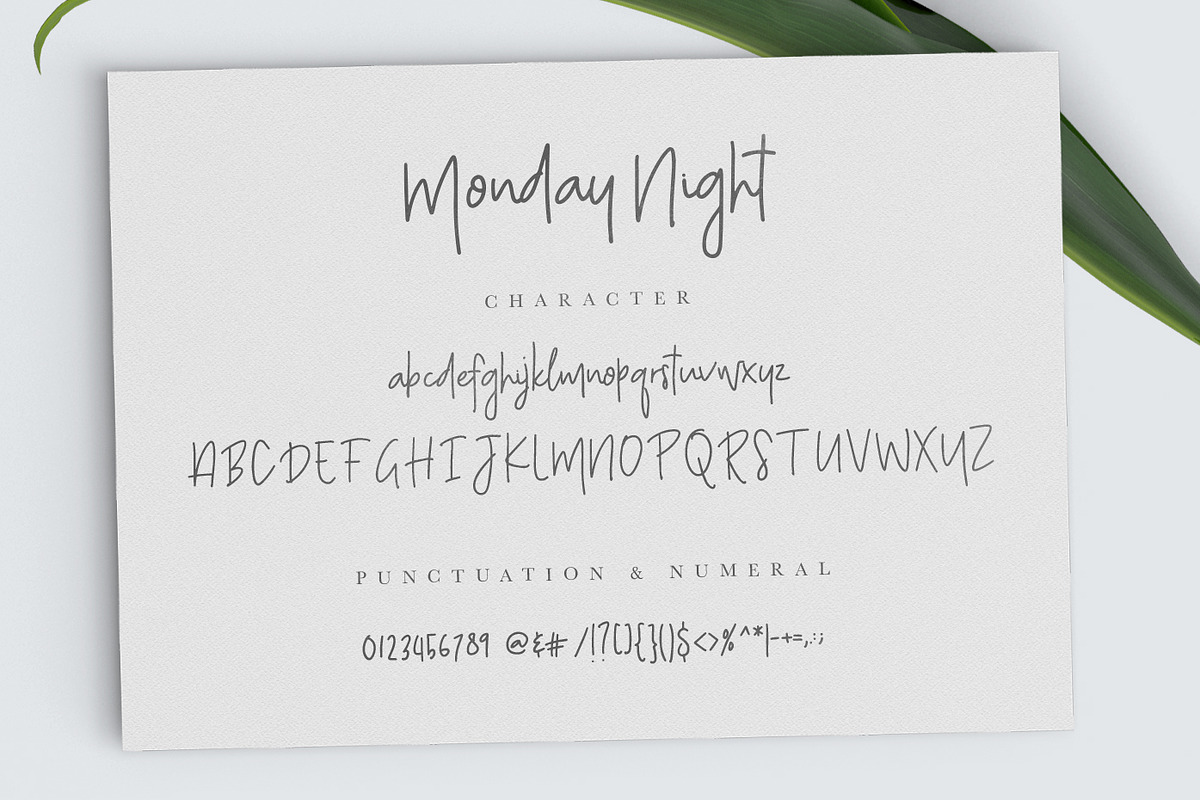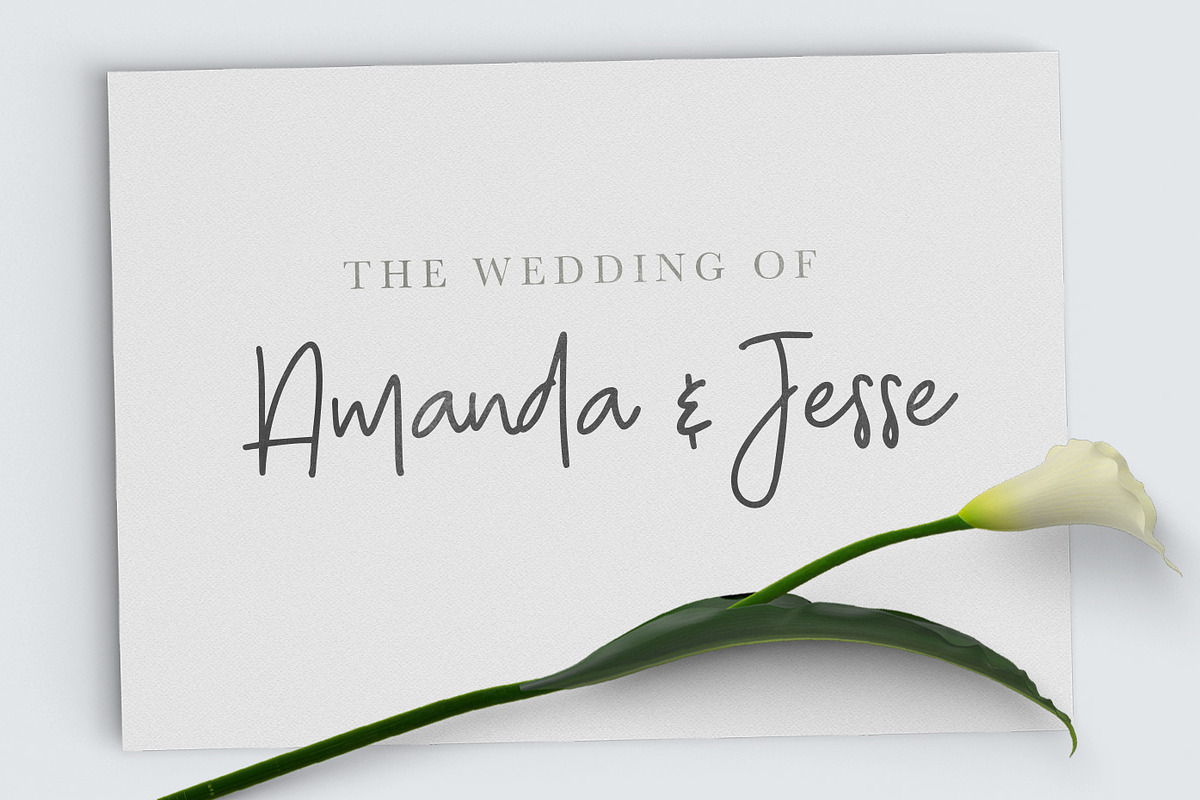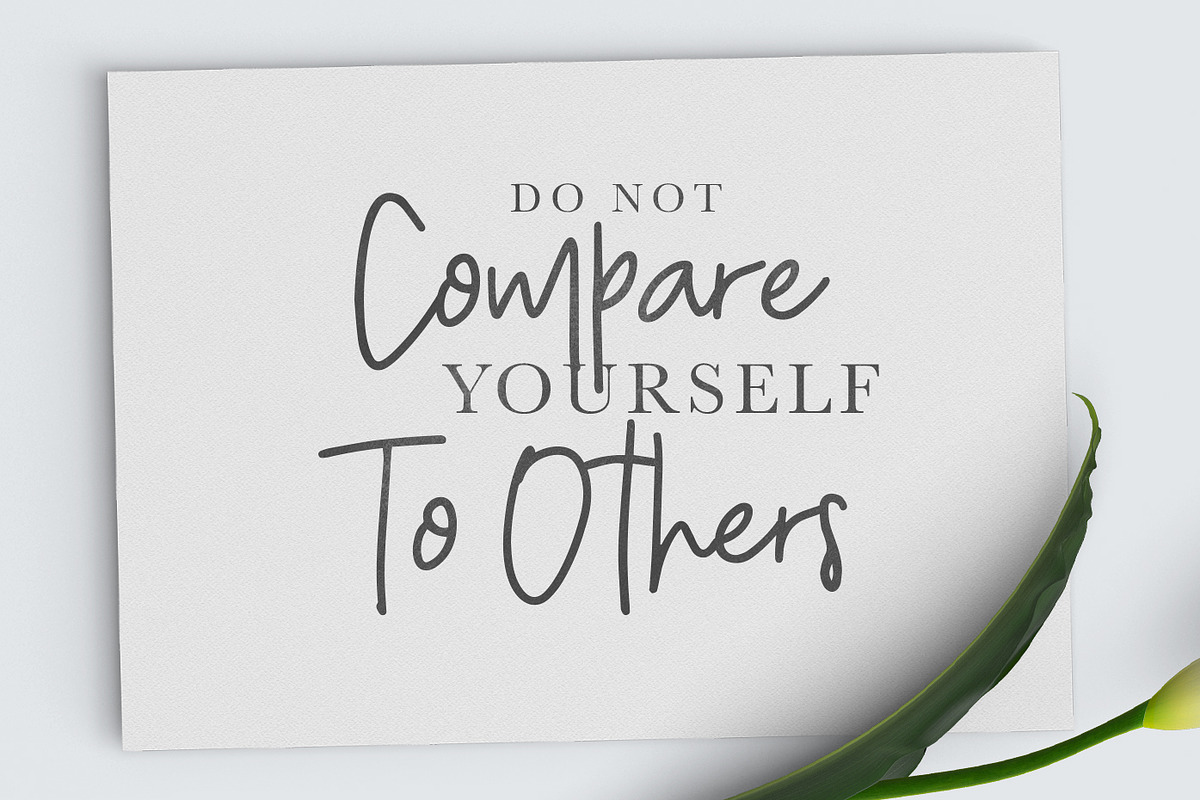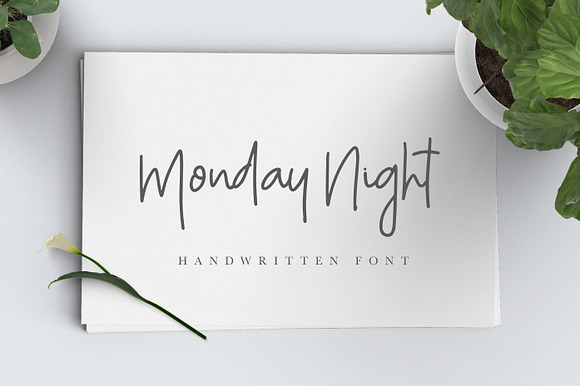
Monday Night Font
Monday Night is beatiful monoline script font.
With this font you can your own logo branding, homeware designs, product packaging, wedding invitation or simply as a stylish text overlay to any background image.
Numeral & Punctuation
Monday Night Font by Angkalimabelas fits naturally into Branding, posters, packaging, typography.